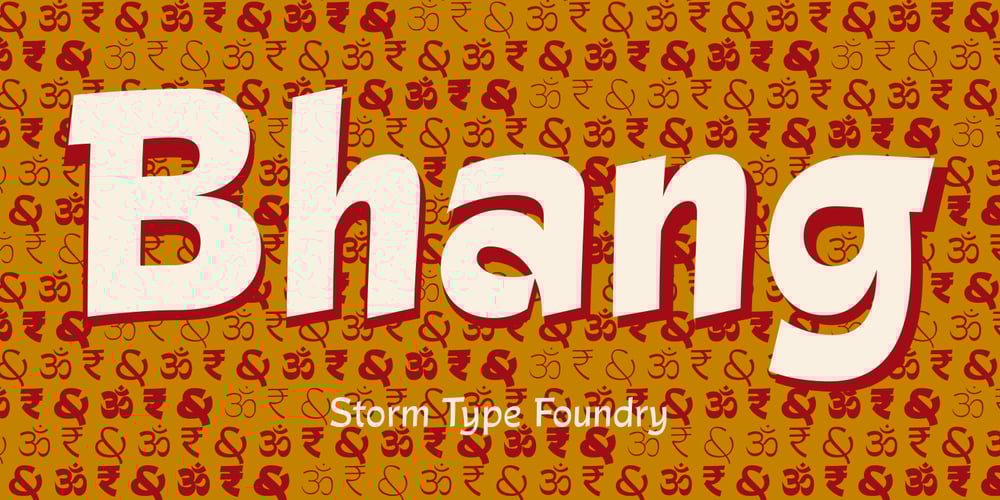
Bhang Font Family was designed by František Štorm and published by Storm Type Foundry. Bhang contains 6 styles and family package options. Reflecting the Indian traditional hand-lettering. Street typography is a chronicle of everyday life.